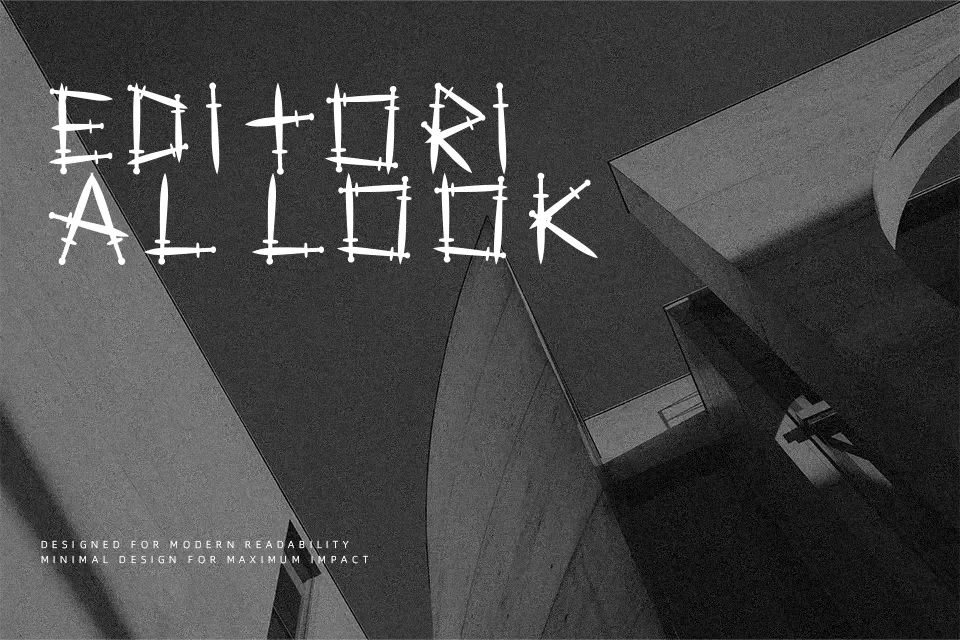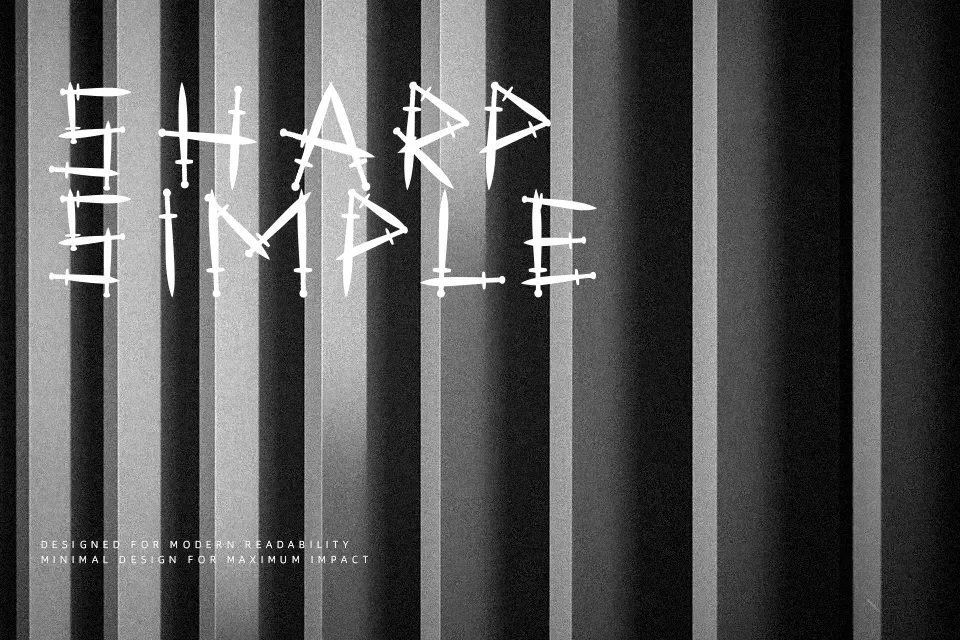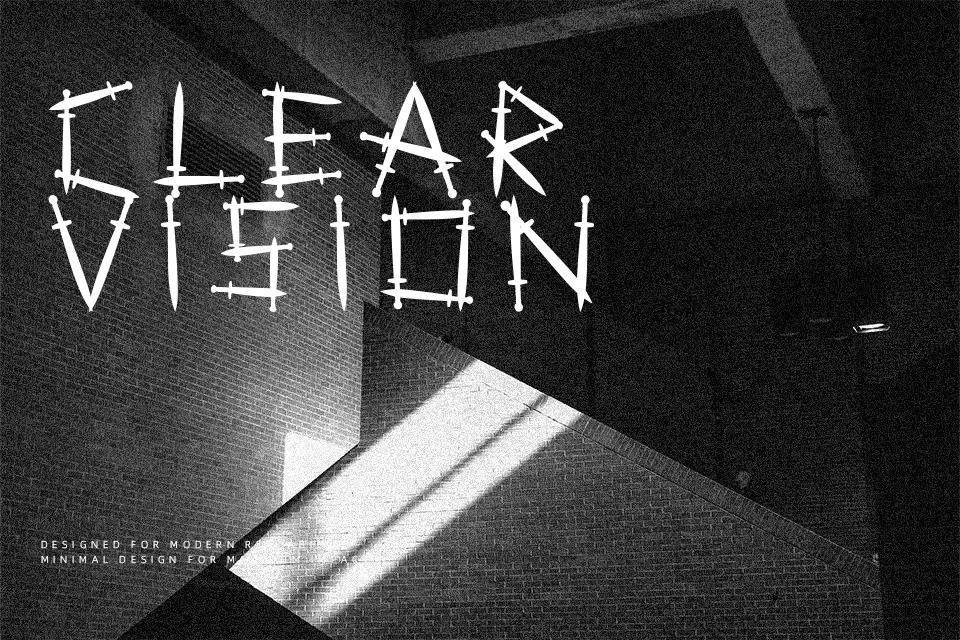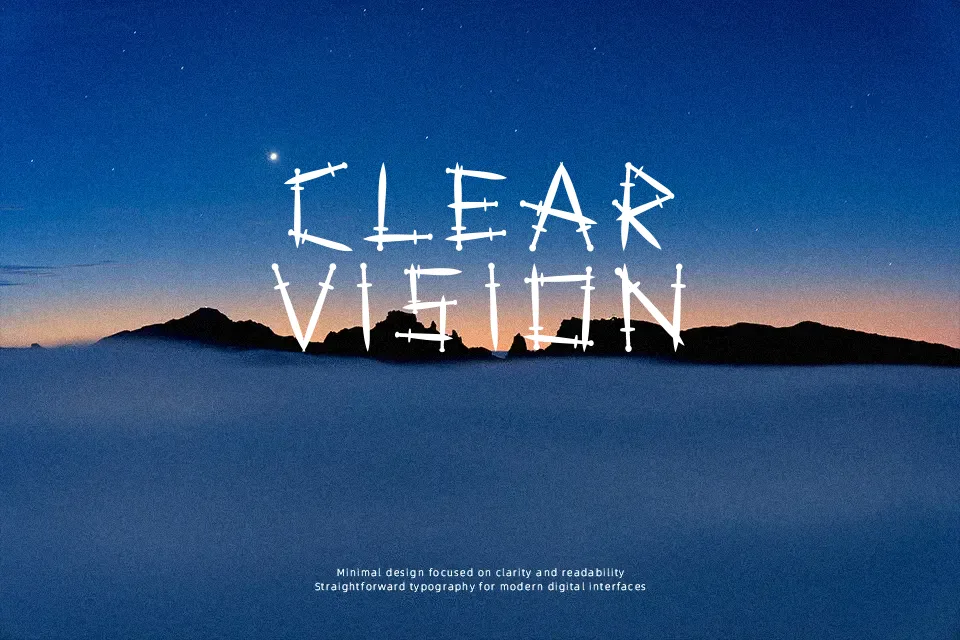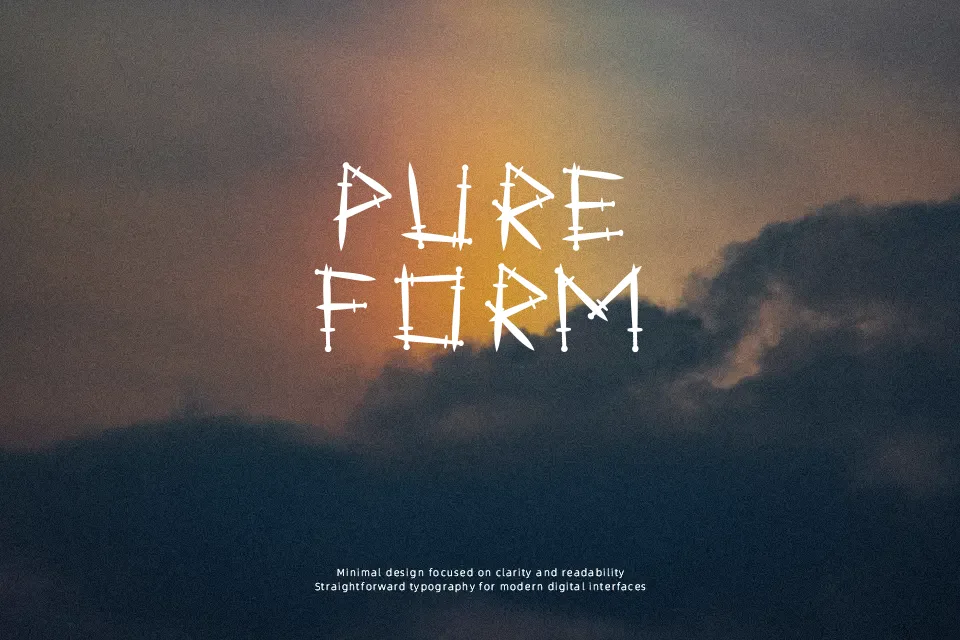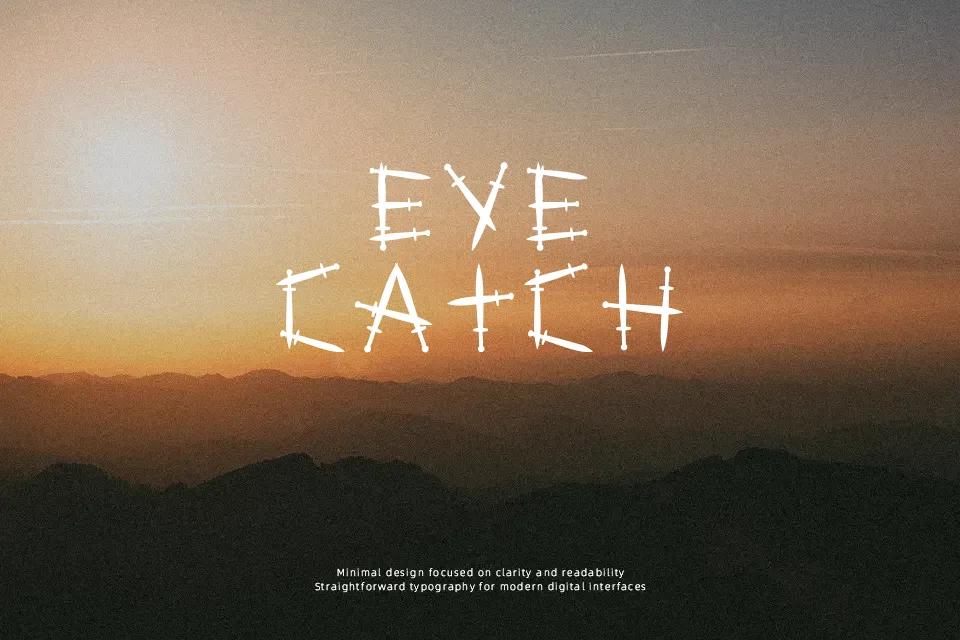
Swordlings Font
Swordlings Font functions as a collection of weapon-shaped decorative glyphs rather than a conventional text face. The forms use long, narrow silhouettes with varied blade profiles, guards, and handles, creating an uneven visual rhythm instead of consistent letter proportions. Spacing is secondary to the individual symbol shapes, and the strokes shift between thin points and broader weapon details. It reads most clearly when treated as a visual accent at larger sizes, such as an emblem detail or game-title ornament. The distinctive silhouettes lose practical clarity in small settings and do not support continuous reading.
Best For: fantasy game logos,medieval poster graphics,film title treatments,decorative branding accents
Perfect for film, gaming, and logo, with a creative and decorative style.